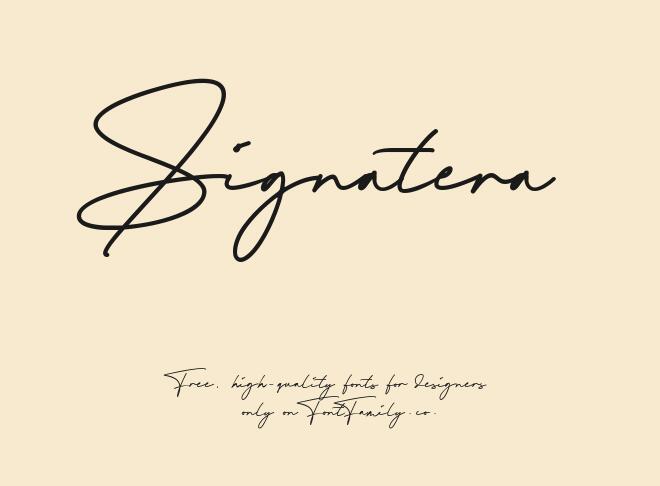
Signatera Font
Signatera Font is a modern and elegant handwritten typeface. Crafted by Foundry Studio, this font offers a unique balance between calligraphic sense and modern readability. Its smooth curves and clean lines make it an ideal choice for branding, logo design, and display texts. The font provides a personal touch, making it perfect for wedding invitations, greeting cards, and any design that requires a handcrafted look. Compared to other fonts, Signatera stands out with its versatility and elegance. Its modern yet classic appeal makes it a great choice for both print and digital media. Whether you're a professional designer or a hobbyist, Signatera Font is a must-have in your design toolkit.